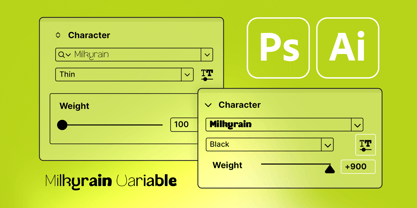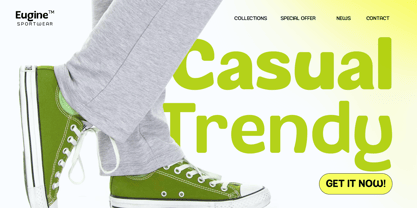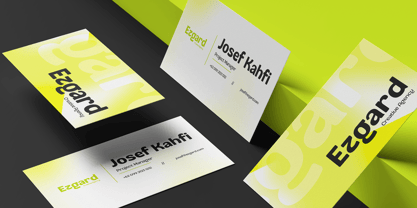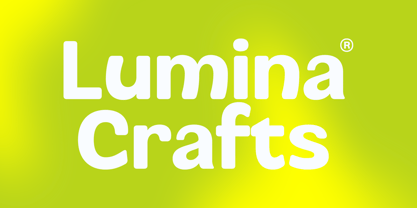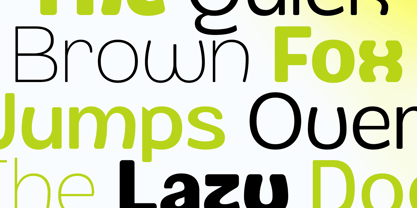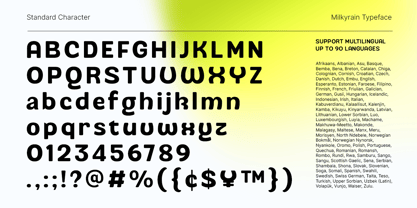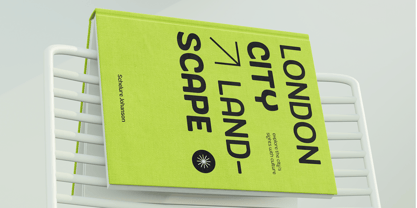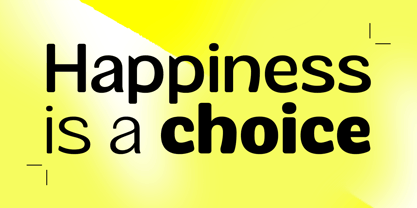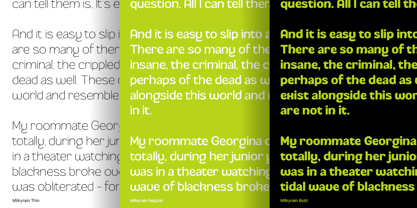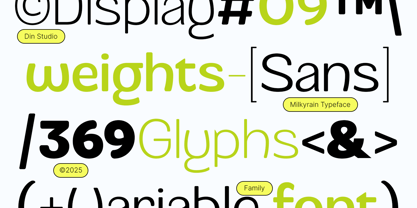
Milkyrain
Die Schriftfamilie Milkyrain wurde von Donis Miftahudin entworfen und von Din Studio veröffentlicht. Milkyrain enthält 9 Stile und Familienpaketoptionen. Mehr über diese Familie
Milkyrain is a charming sans serif font family that blends softness with simplicity. With 9 weights—from delicate Thin to bold Black—and a playful personality shaped by rounded corners and quirky letterforms, Milkyrain adds warmth and character to any design. Its variable font feature lets you fine-tune the weight seamlessly, making it perfect for everything that you need, from branding to creative packaging. In addition, enjoy the features here.
Features:
• Multilingual Supports
• PUA Encoded
• Numerals and Punctuations
Milkyrain fits in logos, branding, packaging, posters, social media post and many more designs. Find out more ways to use this font by taking a look at the font preview.